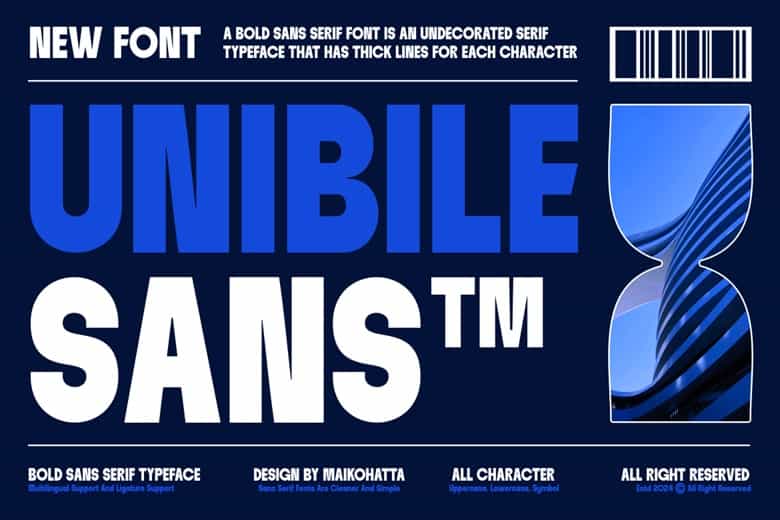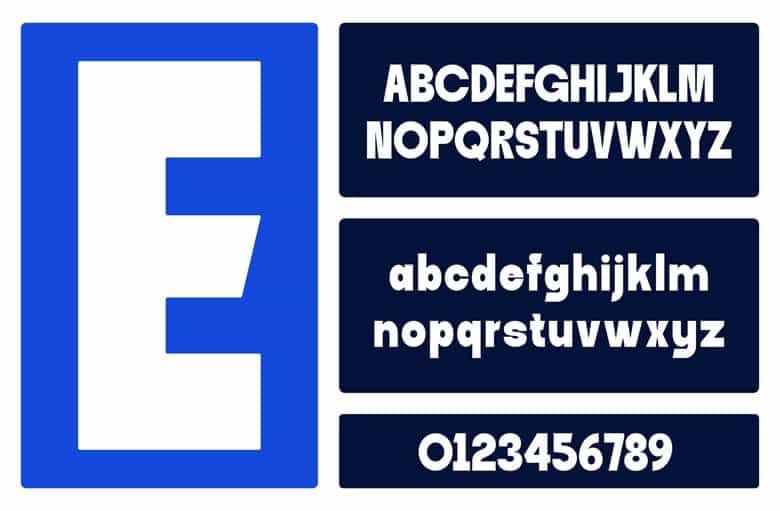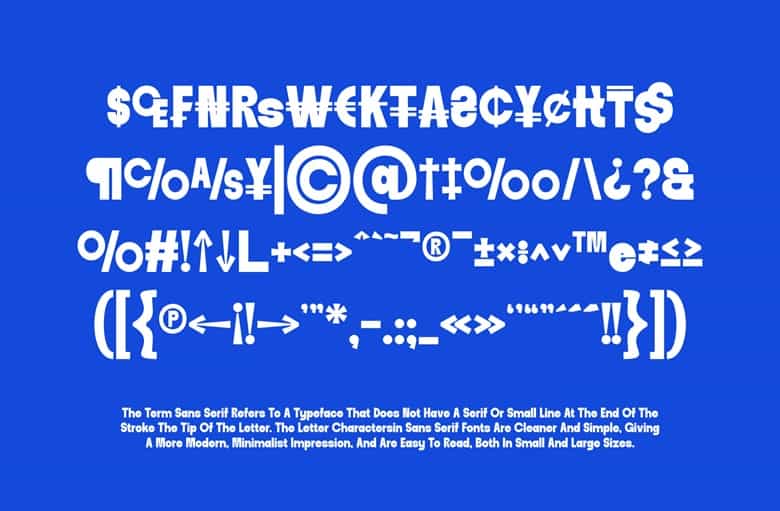
Unibile is a modern bold sans serif font. This sont is a very versatile choice and may be used within a wide range of design situations. That’s why this font is good for use in graphic design and modern typography because it offers a clean, professional and contemporary look, while being easy on the eye and easy to read.